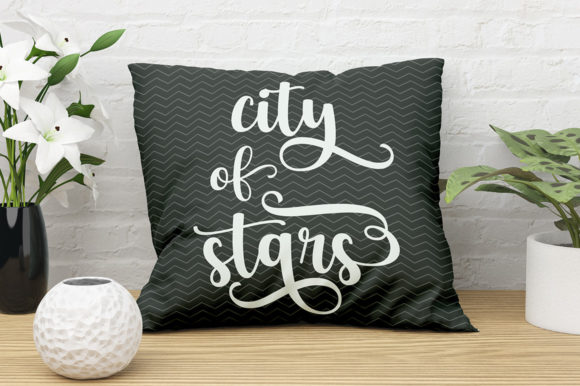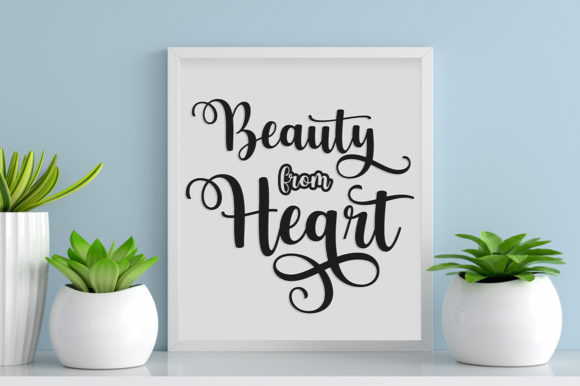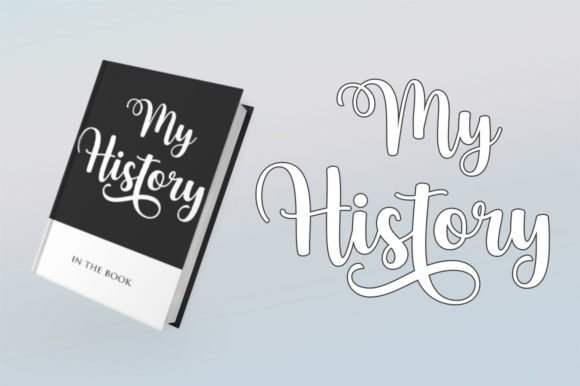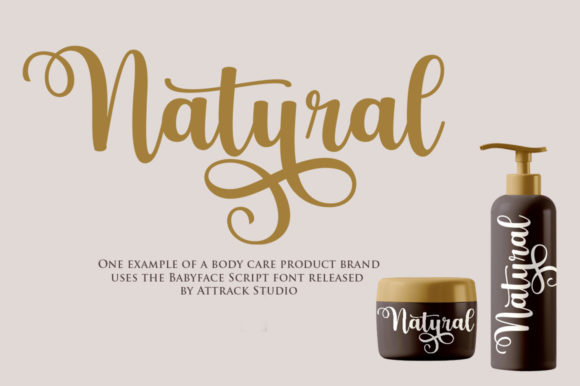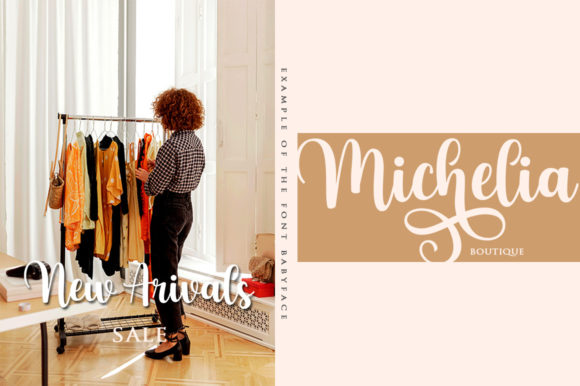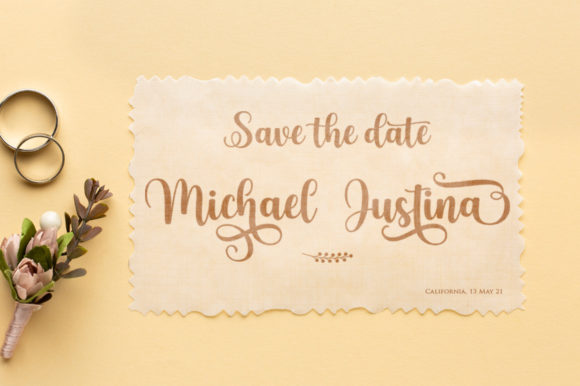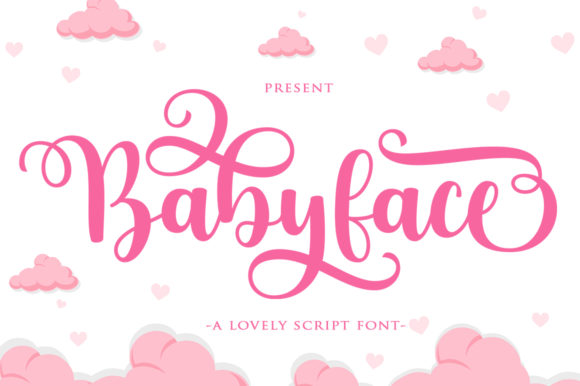
Babyface Font: The Ultimate Choice for Designers and Crafters
In the world of typography, fonts play a crucial role in conveying messages, expressing emotions, and creating visual identities. For designers and crafters, finding the right font can make all the difference in their creative projects. If you’re looking for a font that exudes sophistication, boldness, and charm, look no further than Babyface Font. In this article, we’ll explore the features, benefits, and uses of Babyface Font, and why it’s an excellent choice for your design needs.
What is Babyface Font?
Babyface Font is a handwritten font that strikes the perfect balance between sophistication and boldness. Its unique and elegant design makes it an excellent choice for delivering messages with confidence, authenticity, and charm. Whether you’re working on a branding project, creating social media graphics, or designing a craft project, Babyface Font is sure to make a statement.
Key Features of Babyface Font
• PUA Encoded: Babyface Font is PUA (Private Use Area) encoded, which means you can access all the glyphs and swashes with ease. This feature allows you to explore a wide range of creative possibilities and add a personal touch to your designs.
• Handwritten Style: Babyface Font boasts a beautiful, handwritten style that’s perfect for creating a personal and emotive connection with your audience. Its flowing lines and curves add a touch of elegance and sophistication to any design.
• Bold and Sophisticated: Babyface Font is not just elegant; it’s also bold and eye-catching. Its confident and assertive design makes it perfect for headlines, titles, and other attention-grabbing elements.
Benefits of Using Babyface Font
So, why should you choose Babyface Font for your design projects? Here are just a few benefits of using this amazing font:
• Versatility: Babyface Font is incredibly versatile, making it suitable for a wide range of design projects, from branding and advertising to crafting and DIY projects.
• Easy to Use: With its PUA encoding, Babyface Font is easy to use, even for designers who are new to font editing software.
• Unique and Memorable: Babyface Font’s unique design ensures that your projects will stand out from the crowd and leave a lasting impression on your audience.
Uses of Babyface Font
Babyface Font is perfect for a variety of design projects, including:
• Branding and Logo Design: Use Babyface Font to create a bold and memorable logo that reflects your brand’s personality and values.
• Social Media Graphics: Add a touch of elegance and sophistication to your social media graphics, including Facebook posts, Instagram stories, and Twitter headers.
• Crafting and DIY Projects: Babyface Font is perfect for crafters and DIY enthusiasts who want to add a personal touch to their projects, such as handmade cards, gift tags, and scrapbooking pages.
Tips for Using Babyface Font
Here are a few tips for getting the most out of Babyface Font:
• Experiment with Different Sizes: Babyface Font looks great in a variety of sizes, from large headlines to smaller body text.
• Pair with Other Fonts: Try pairing Babyface Font with other fonts to create a unique and visually appealing combination.
• Use Swashes and Glyphs: Take advantage of Babyface Font’s PUA encoding to access a wide range of swashes and glyphs that can add a touch of elegance and sophistication to your designs.
In conclusion, Babyface Font is an exceptional choice for designers and crafters who want to add a touch of sophistication, boldness, and charm to their projects. With its PUA encoding, handwritten style, and bold design, Babyface Font is perfect for a wide range of design projects, from branding and advertising to crafting and DIY projects. Whether you’re a seasoned designer or just starting out, Babyface Font is sure to become a favorite in your font collection.